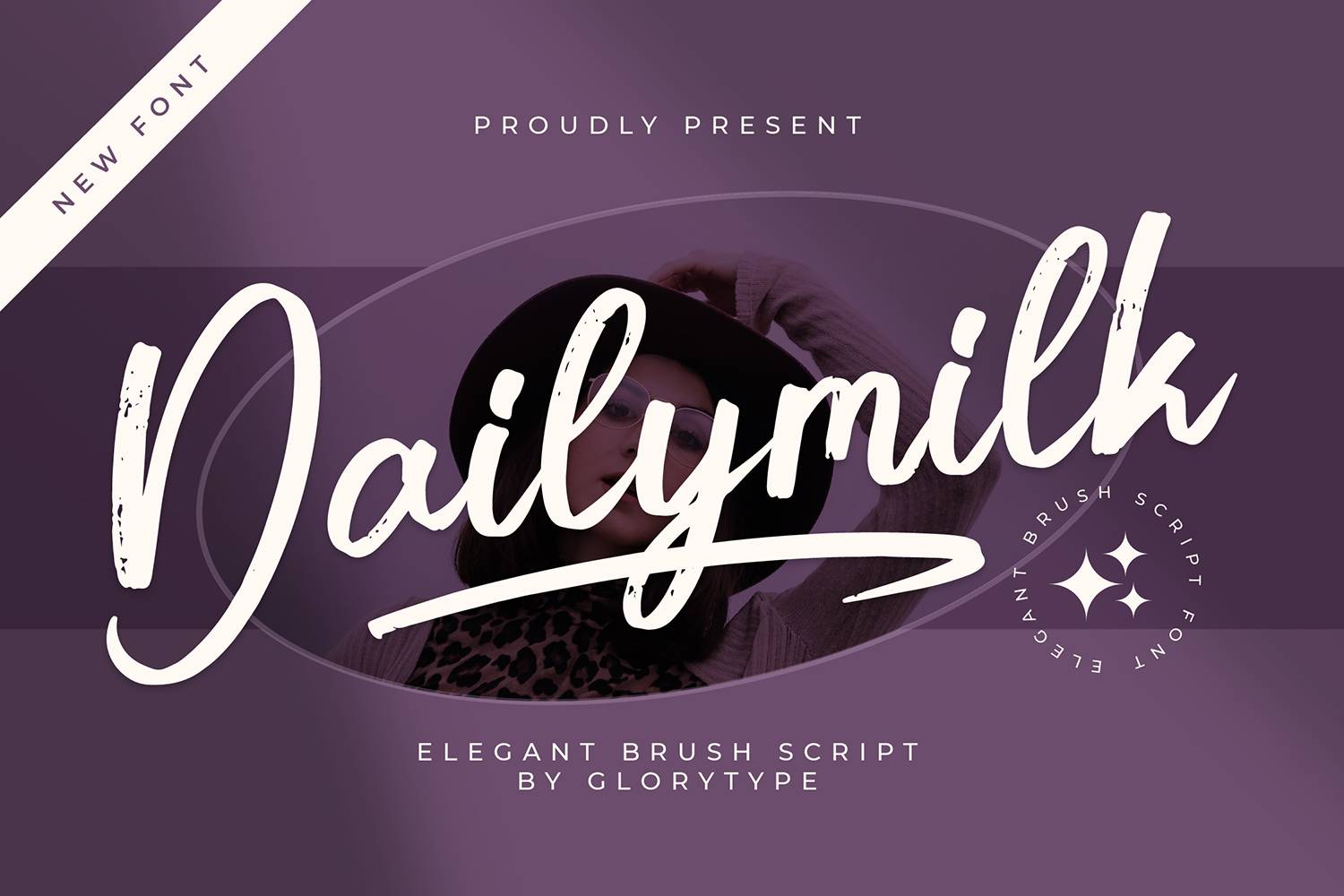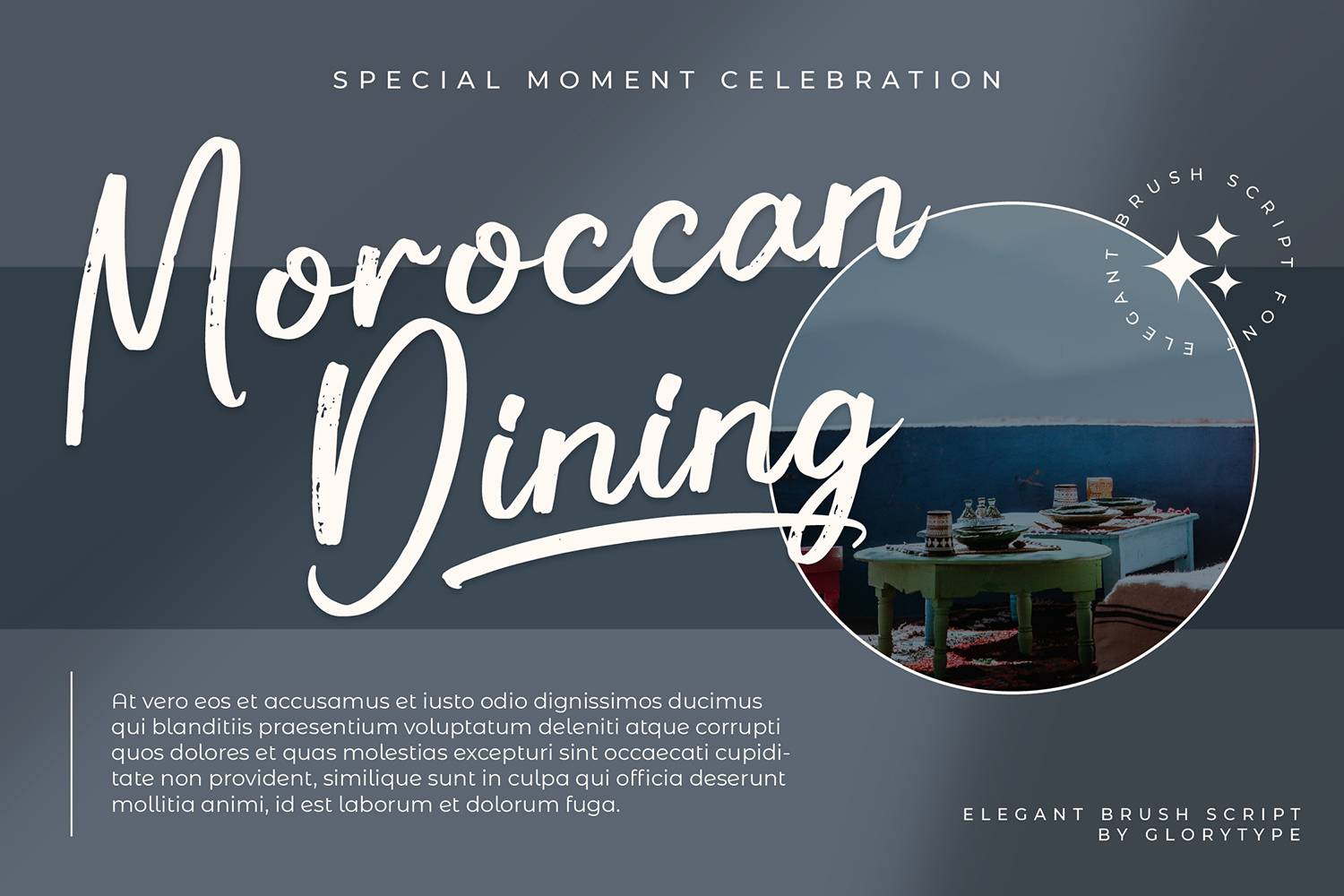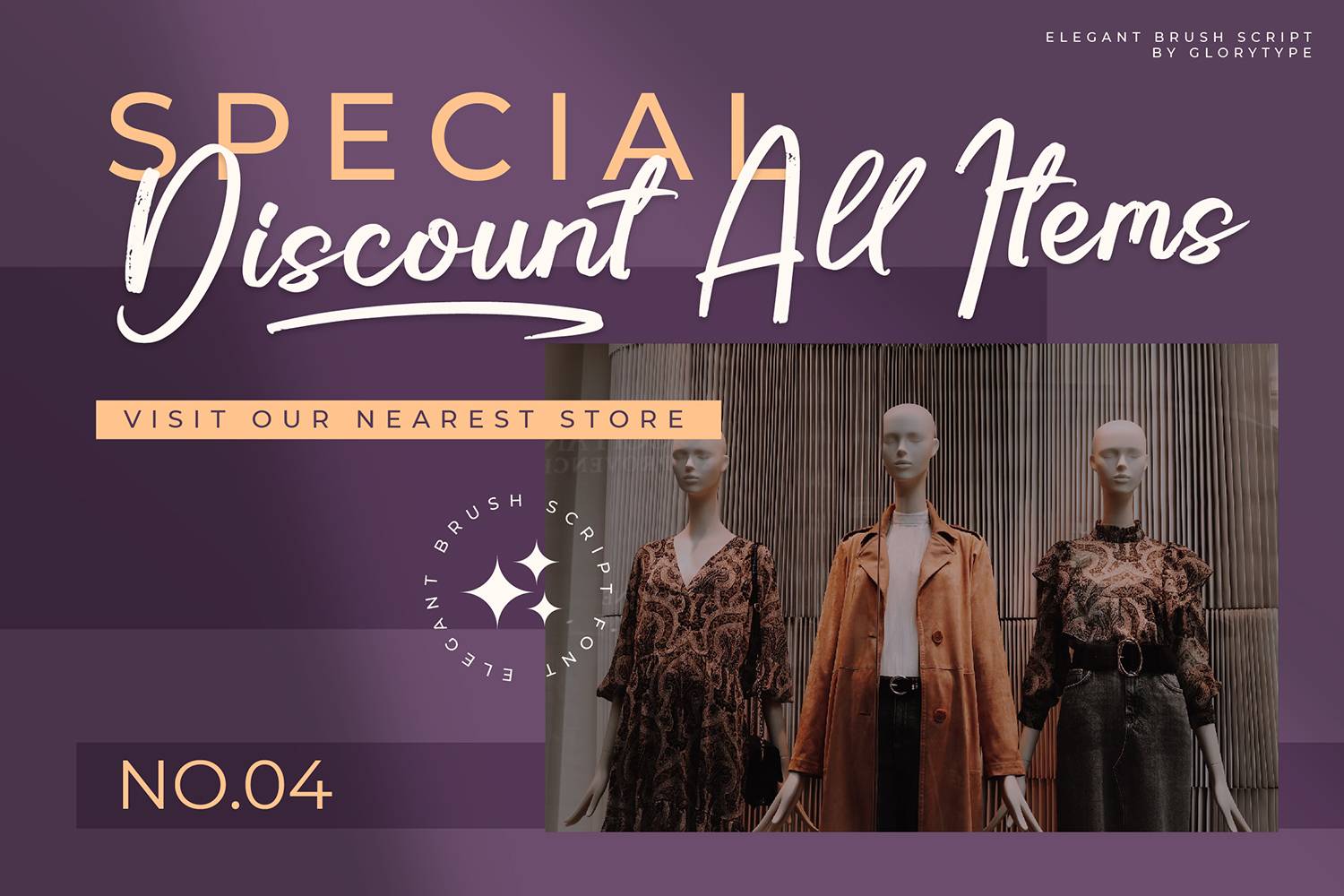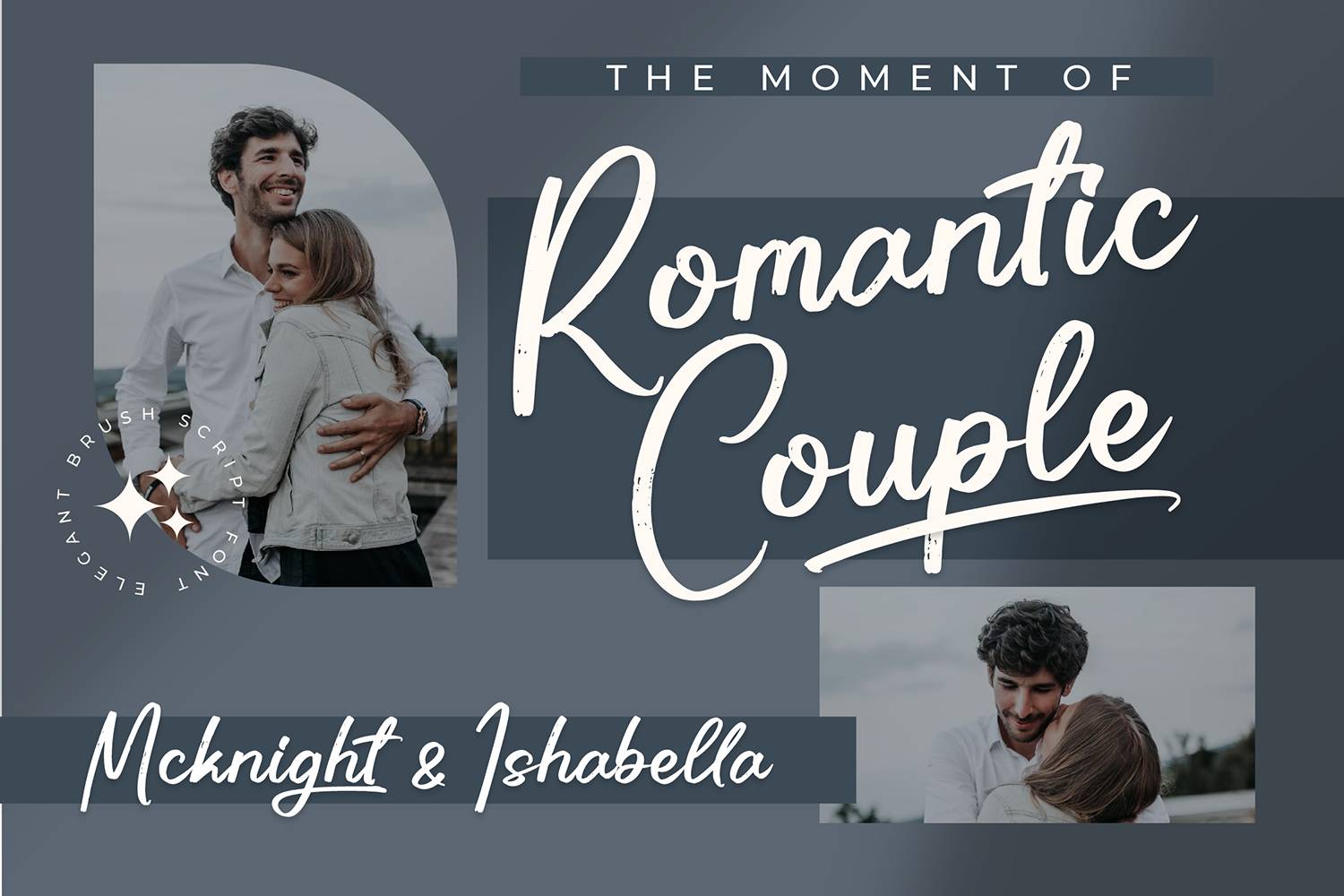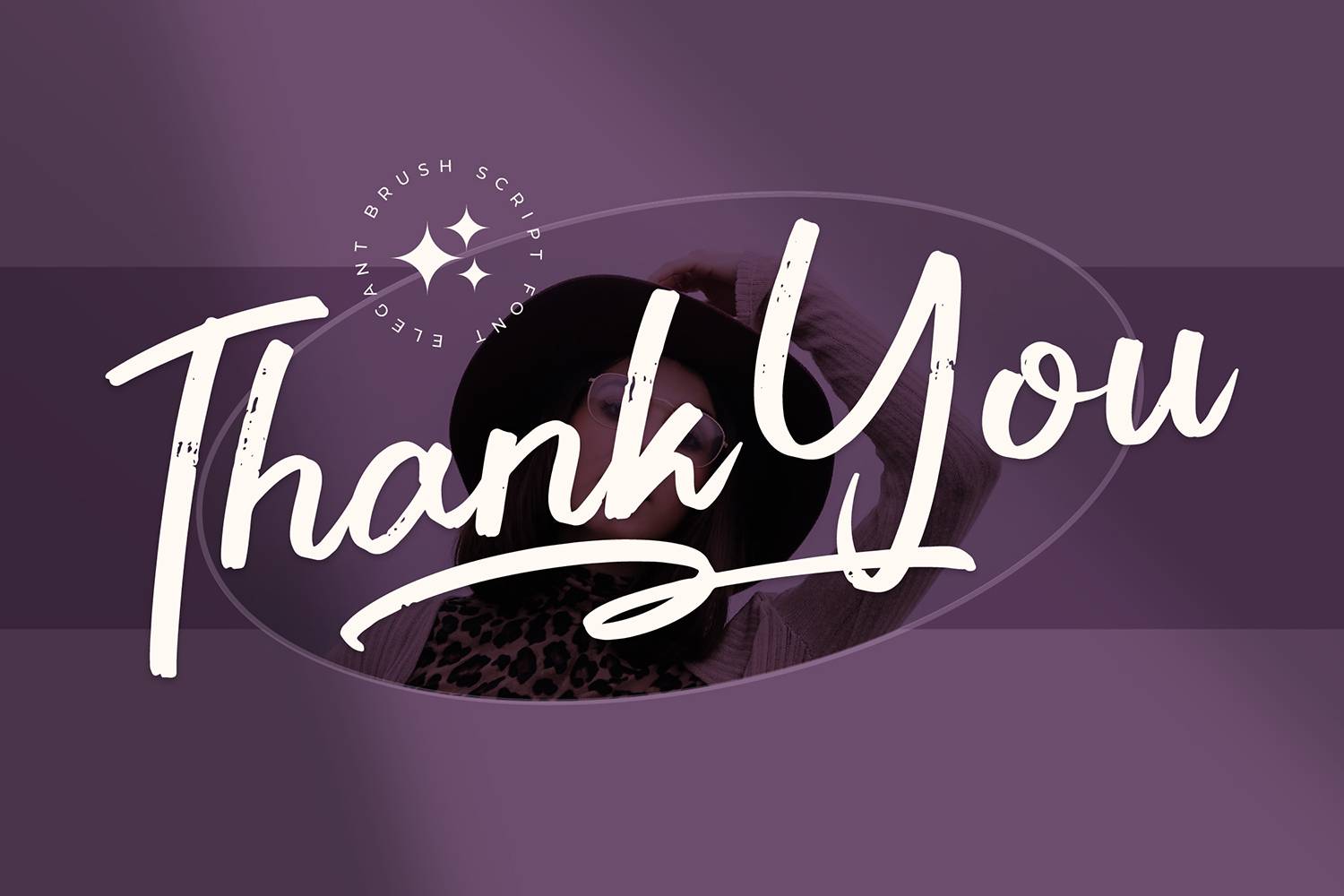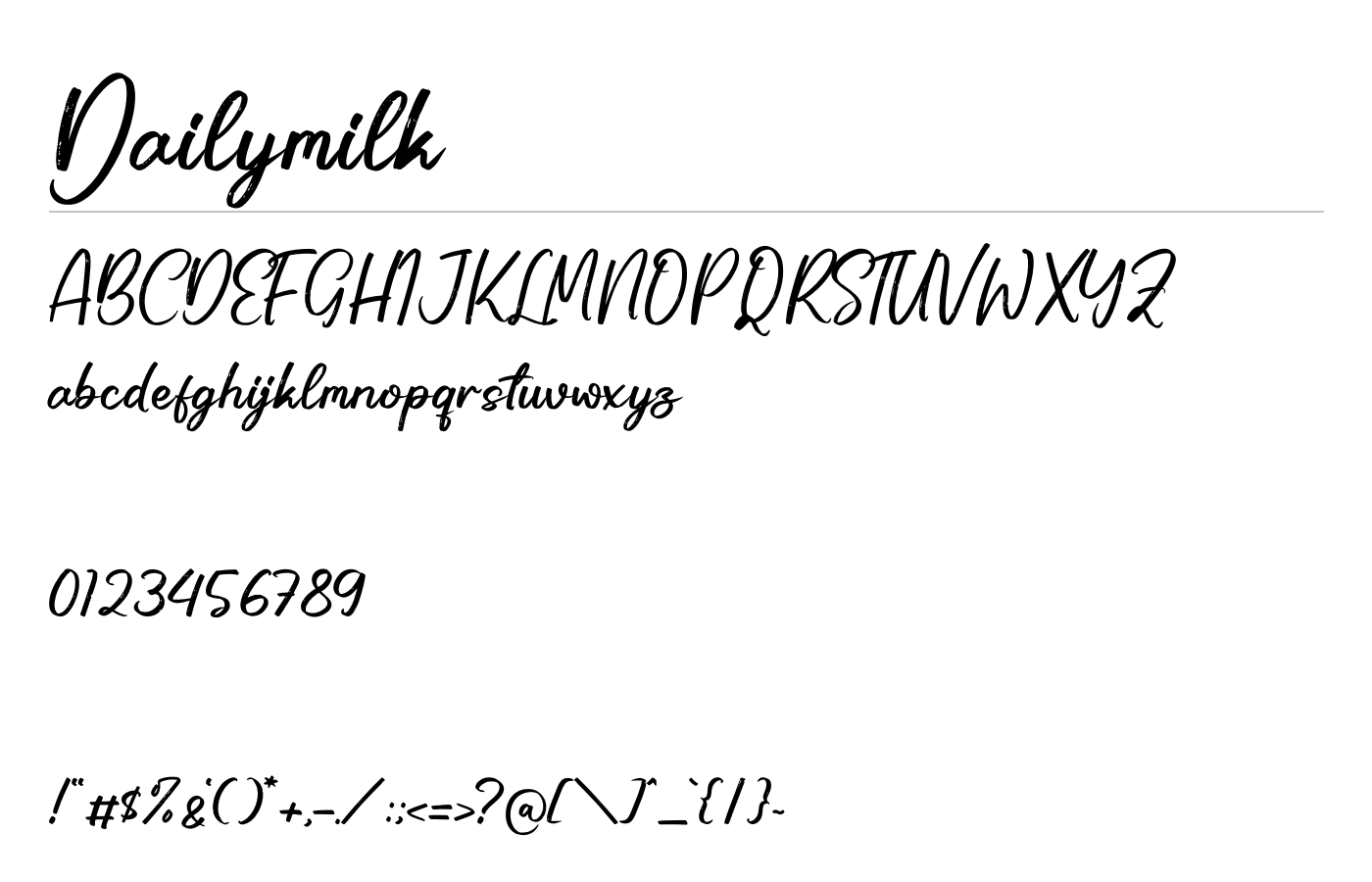
Dailymilk is a lively and elegant script font with a handwritten feel, featuring smooth, flowing strokes and moderate contrast that give it a natural, casual charm. Its slender, slightly condensed letterforms with playful, unique details make it perfect for adding a personal touch to branding, invitations, and creative projects. This font works especially well in designs that seek warmth and approachability while maintaining stylish sophistication.
Dailymilk Font
About Dailymilk Font